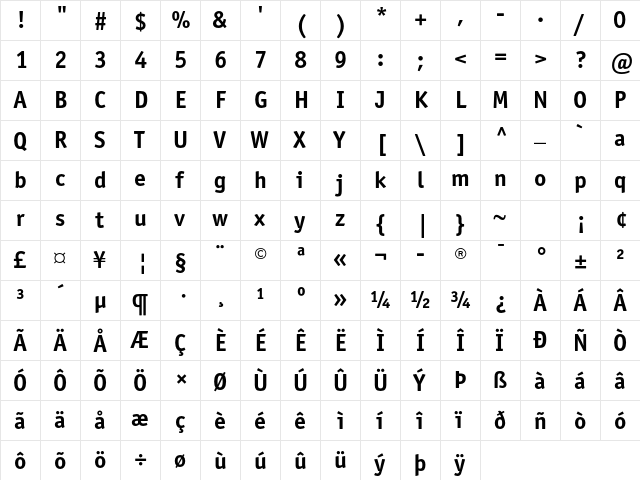
ITC Officina Sans Std Bold
Bold ·  Erik Spiekermann ·
Design Context for ITC Officina Sans Std Typeface
ITC Officina Sans Std takes a measured approach to typography — its balanced proportions and neutral character make it a reliable workhorse for both digital and print work. The heavy weight commands attention and anchors typographic hierarchies.